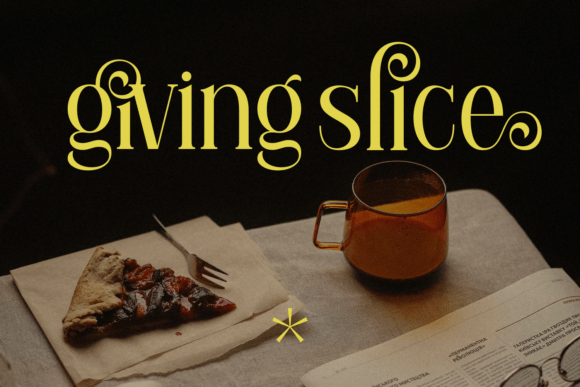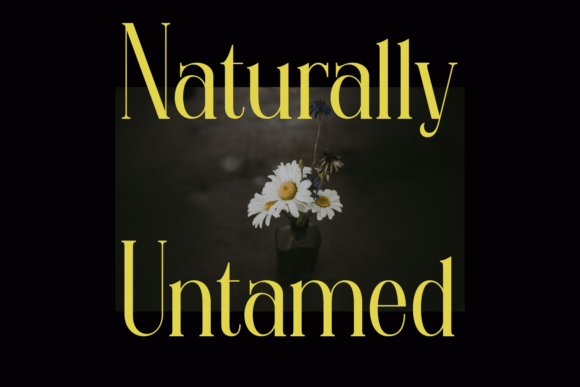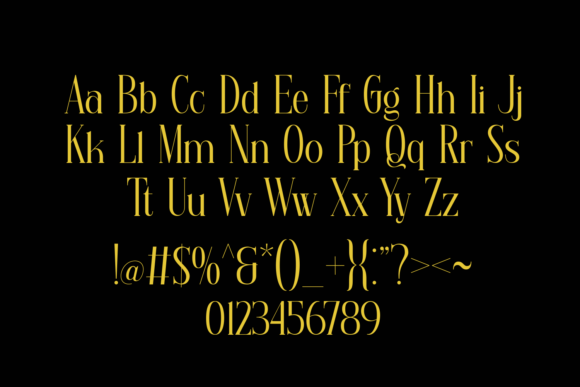
Introduction to Quiet Lumie Font
The font in the image is an elegant modern serif typeface with a strong sense of luxury and sophistication.
High contrast strokes – Thick vertical lines combined with very thin hairline serifs create a refined and dramatic look Decorative swashes – Several letters, such as the capital “Q” and the ending letters, have beautiful flowing swirls that add a romantic and artistic touch.